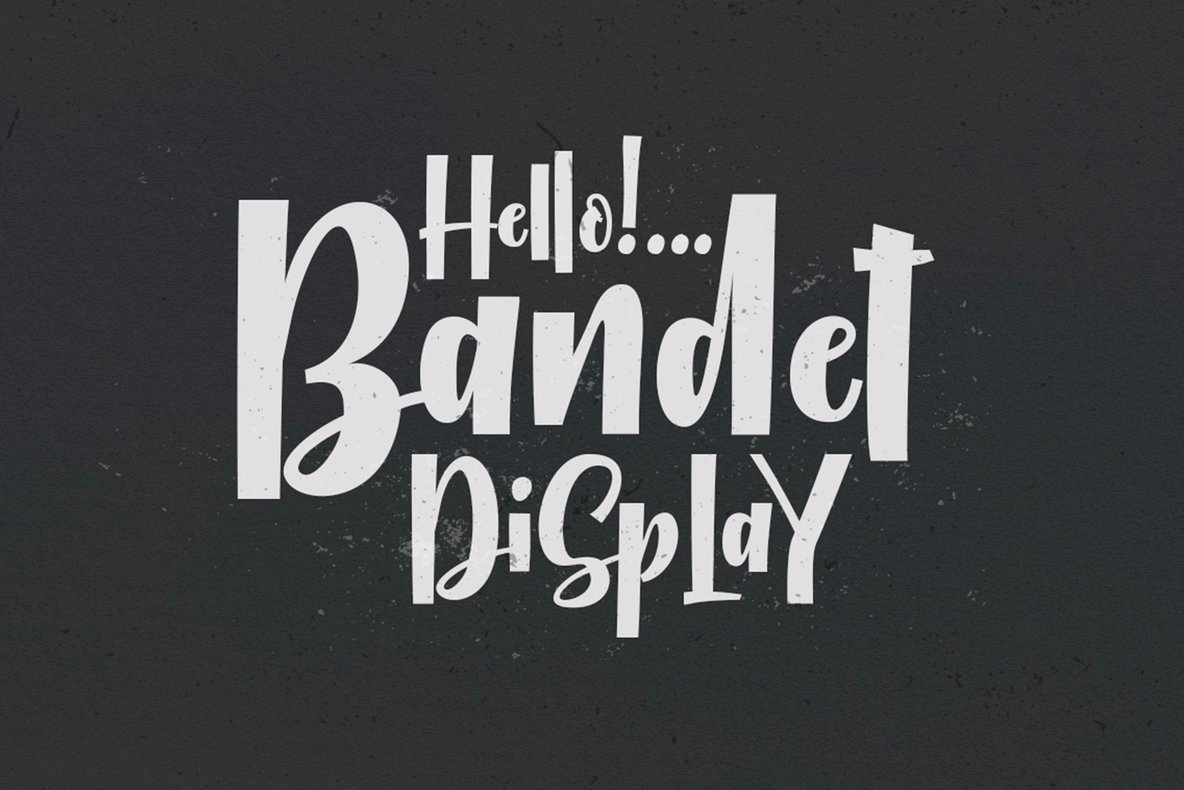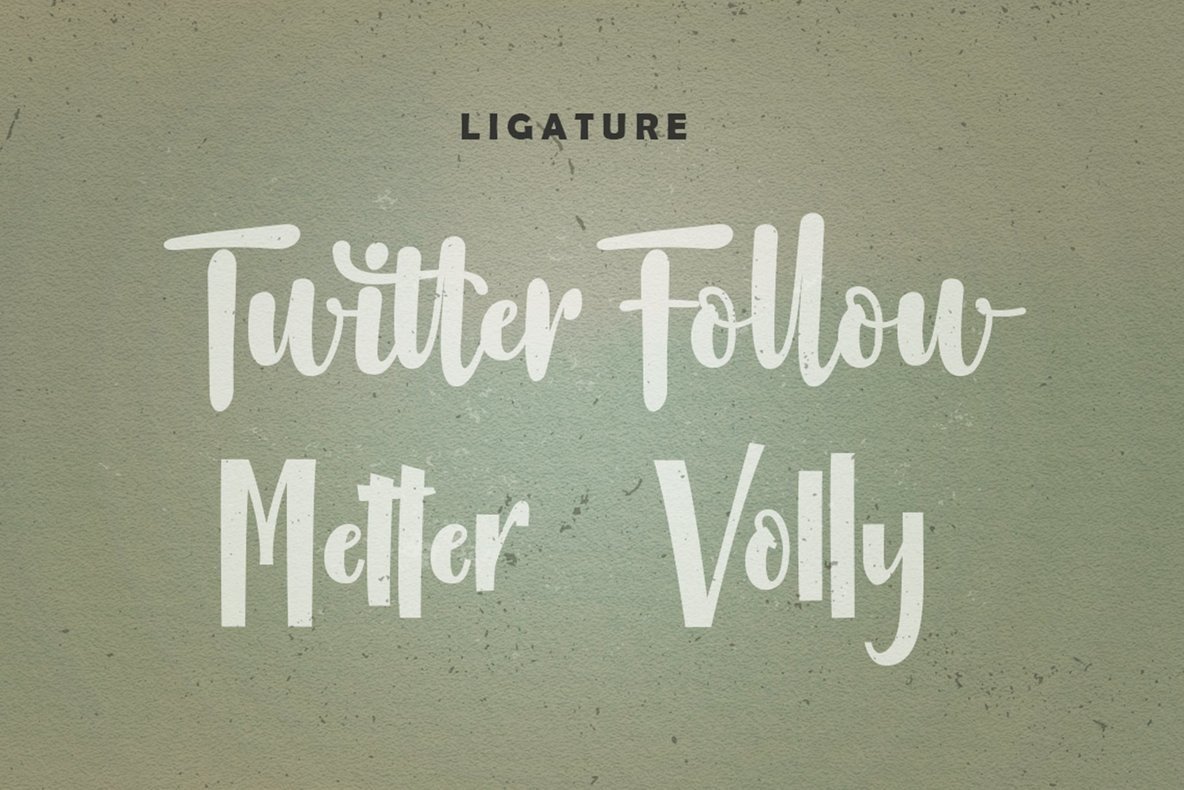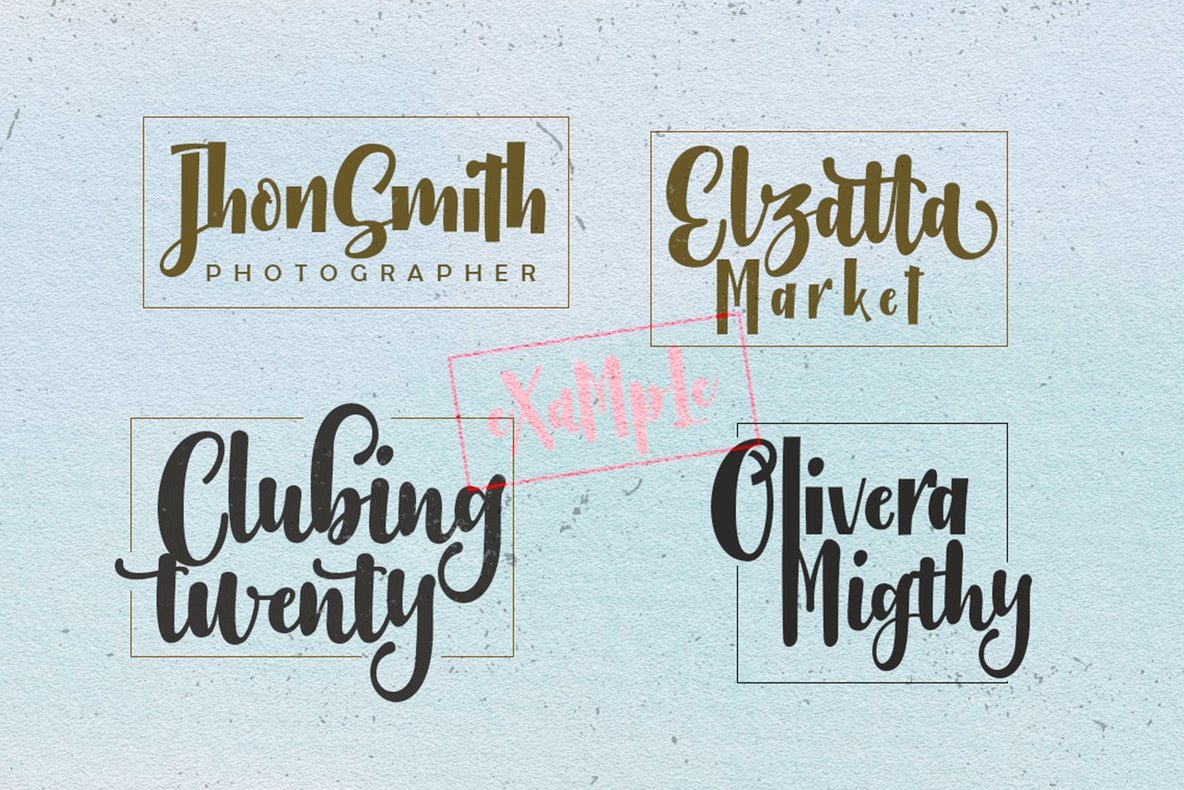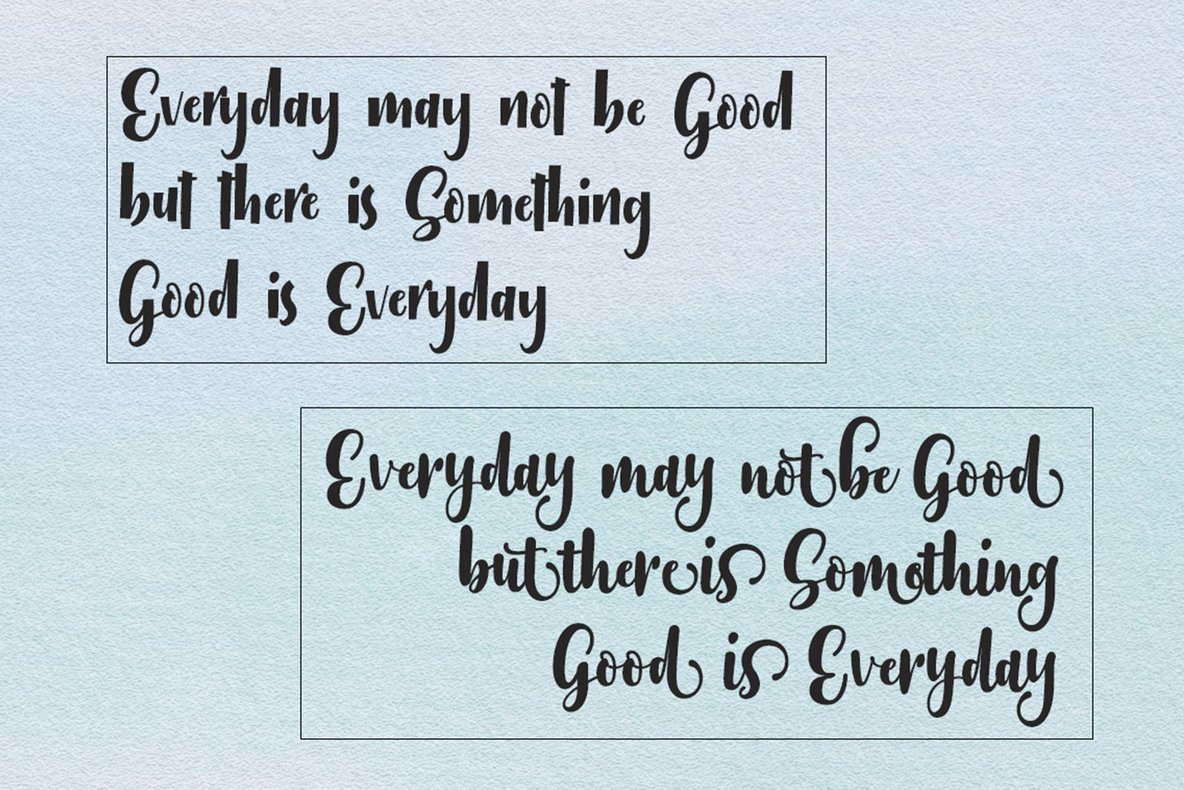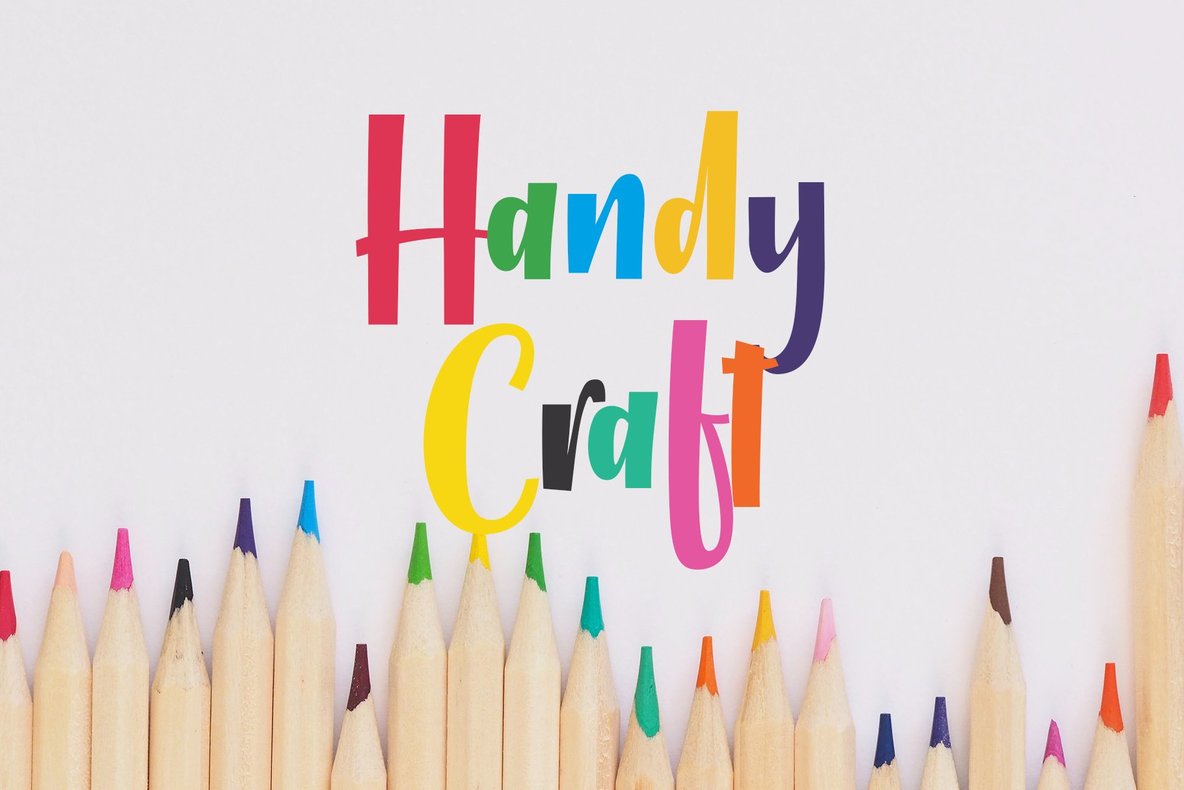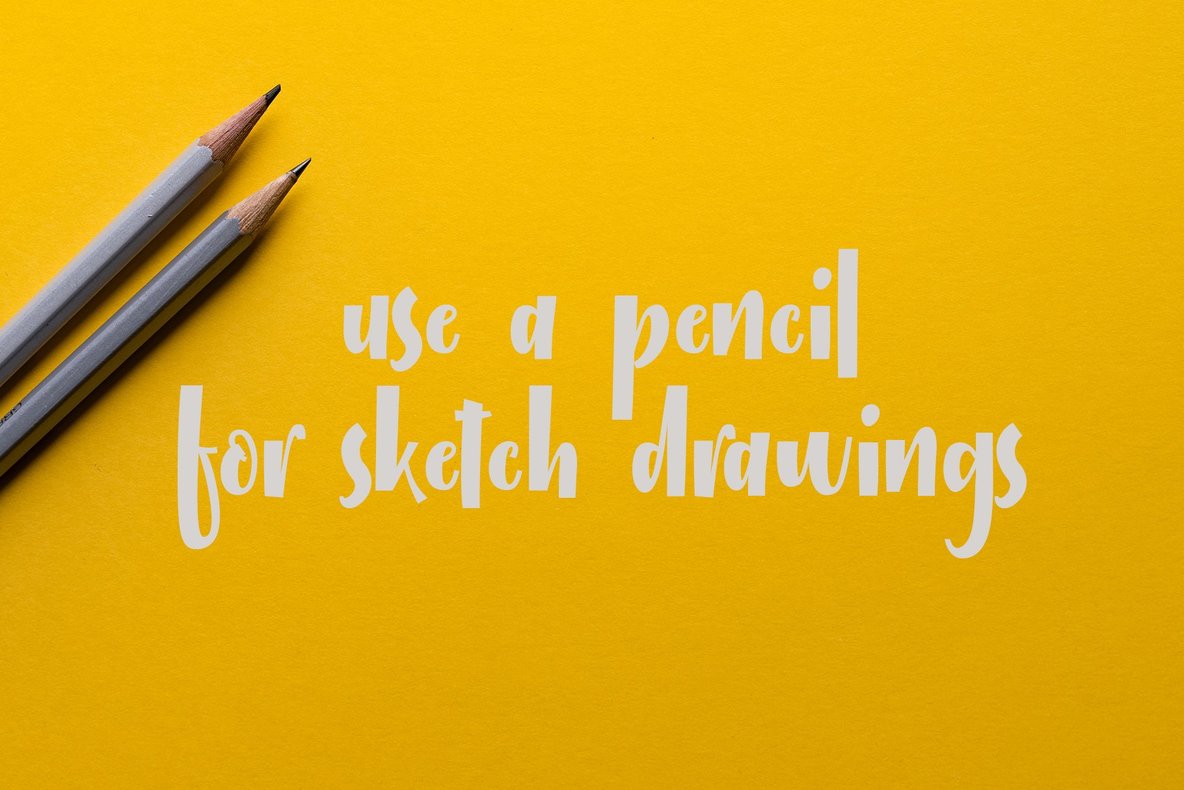
Bandet Font
Bandet, designed by GraphicPress, offers a striking brush script perfect for those who appreciate the intricacies of modern calligraphy. This bold typeface blends classic brush strokes with contemporary flair, making it a true standout in the world of typography. Bandet supports a wide range of European languages, including French, German, Spanish, and many others based on the Latin alphabet. Ideal for a variety of applications, Bandet is suitable for headings, logos, wedding invitations, t-shirts, and more. To access its OpenType features, use programs like Adobe Illustrator, InDesign, or CorelDraw that support such functionalities.Bandet: Bold Brush Script With Modern Appeal